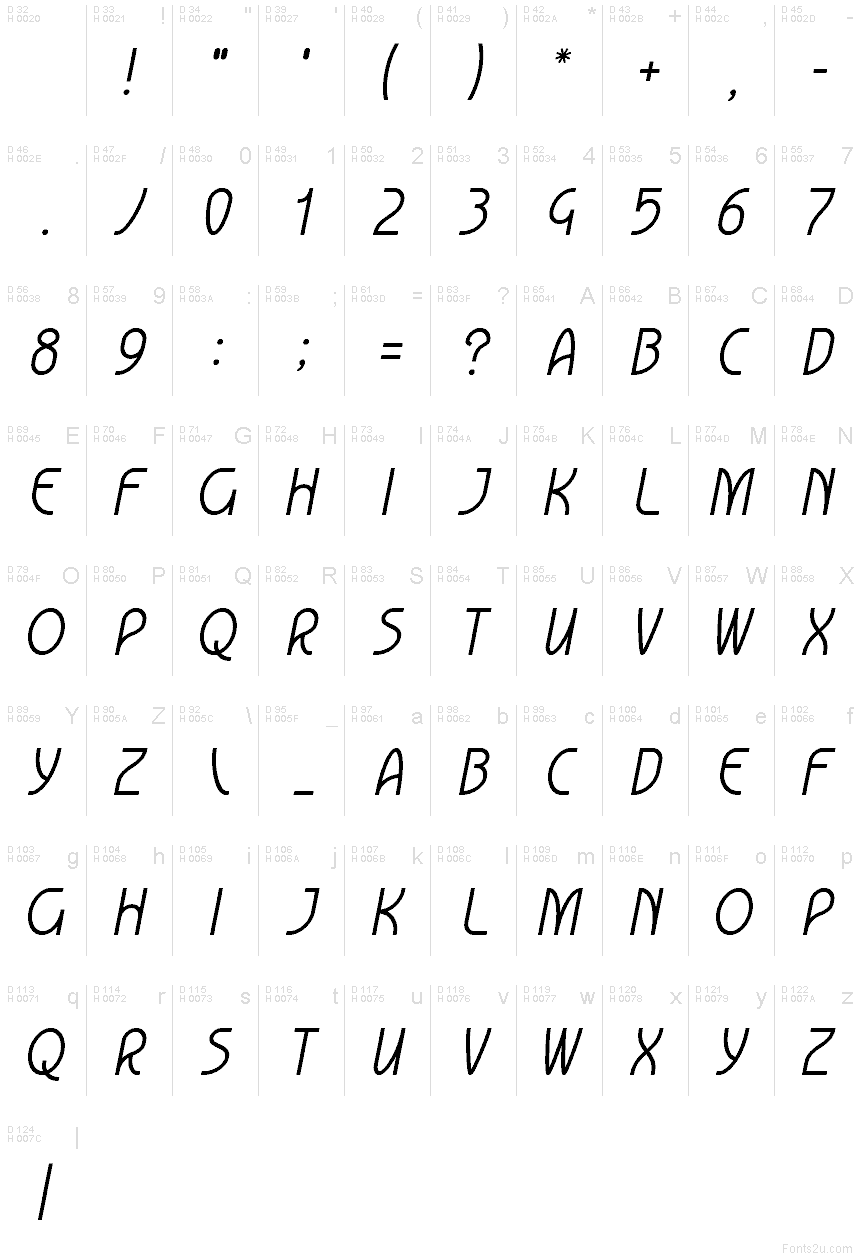
Lumierepolis Italic font by GGBotNet is a free retro display typeface with a distinctly cinematic swagger. Its tall, tightly spaced letters swoop forward in a smooth, almost neon-like stroke, as if they were drawn in one continuous motion. The rhythm feels fast and fluid, giving headlines a sense of motion and nightlife energy-think glowing marquees, opening credits, and rainy city streets reflected in glass.
Using Lumierepolis Italic, your text instantly picks up a sleek, nostalgic polish that shines on posters, wordmark logos, event flyers, album covers, and bold website hero titles. This free font thrives at larger sizes, where its slanted curves and long silhouettes can really stretch out; pair it with a clean geometric sans for body copy to keep the look sharp and readable.